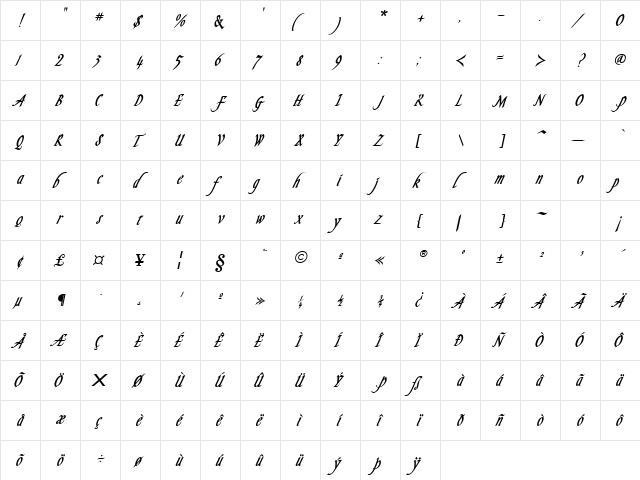
Sliver Bold
Design Context for Sliver Typeface
Sliver is a composed and adaptable typeface that performs quietly and consistently across a wide range of design contexts. The heavy weight commands attention and anchors typographic hierarchies.